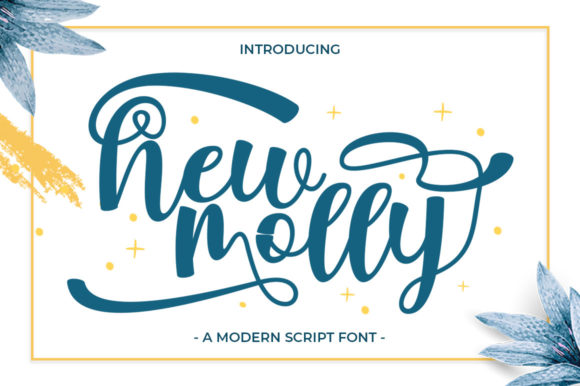
In a world where individuality reigns supreme, your online presence demands a voice that speaks volumes, reflecting the essence of your brand and captivating the hearts of your audience. Introducing New Molly, a script font family crafted with meticulous care, poised to transform your Twitter banner into a visual masterpiece.
Step into a realm of boundless creativity, where the free-flowing strokes of New Molly intertwine, creating an enchanting symphony of elegance and charm. Each letter dances gracefully across the screen, like a ballerina pirouette, beckoning your audience to embark on a journey of visual delight.
With New Molly adorning your Twitter banner, prepare to leave an indelible impression, igniting curiosity and inspiring awe. Its meticulously designed curves and flourishes exude a timeless sophistication, elevating your profile to new heights of visual appeal.
Beyond its aesthetic brilliance, New Molly possesses an adaptability that knows no bounds. Whether you seek to craft captivating social media posts, design eye-catching logos, or create stunning invitations, New Molly effortlessly adapts to your creative vision.
Harness the power of New Molly's PUA encoding, unlocking a treasure trove of glyphs and ligatures that unleash your artistic potential. Effortlessly access these embellishments to add intricate details and a touch of whimsy to your designs, leaving your audience mesmerized.
As you weave your words into existence, let New Molly be your faithful companion, guiding you through a world of visual storytelling. Its enchanting aura will captivate your audience, transforming your Twitter banner into a captivating work of art that speaks to their hearts and compels them to engage.